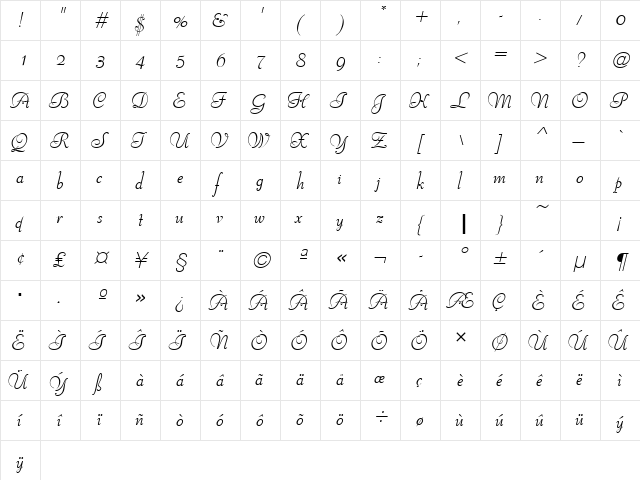
ViantURWTNor Regular Font Preview
ViantURWTNor Regular
Design Context for ViantURWTNor Typeface
ViantURWTNor is a composed and adaptable typeface that performs quietly and consistently across a wide range of design contexts.